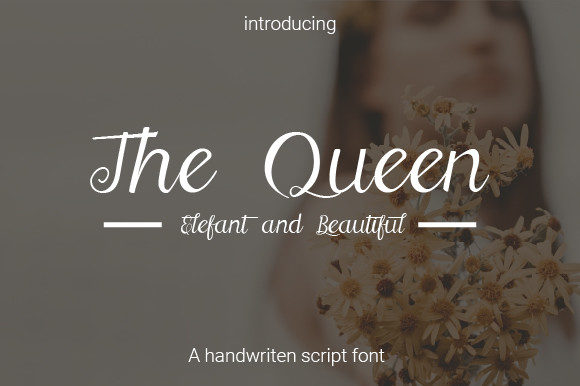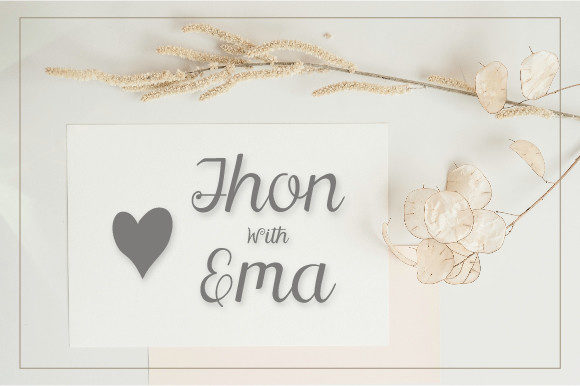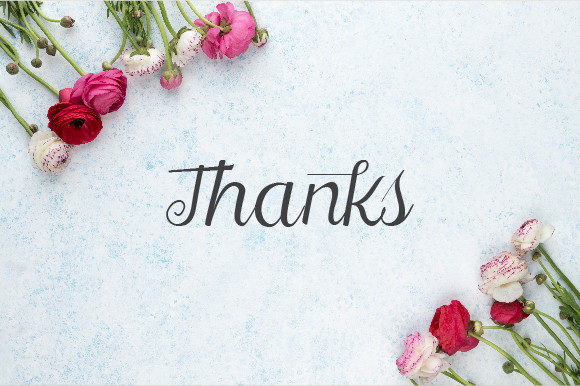
The Queen Script Font
About The Queen Script Font
The Queen is a superb script font created with the perfect balance between elegance and modernity. It works great for various projects, including wedding invitations, social media posts, quotes, and much more.